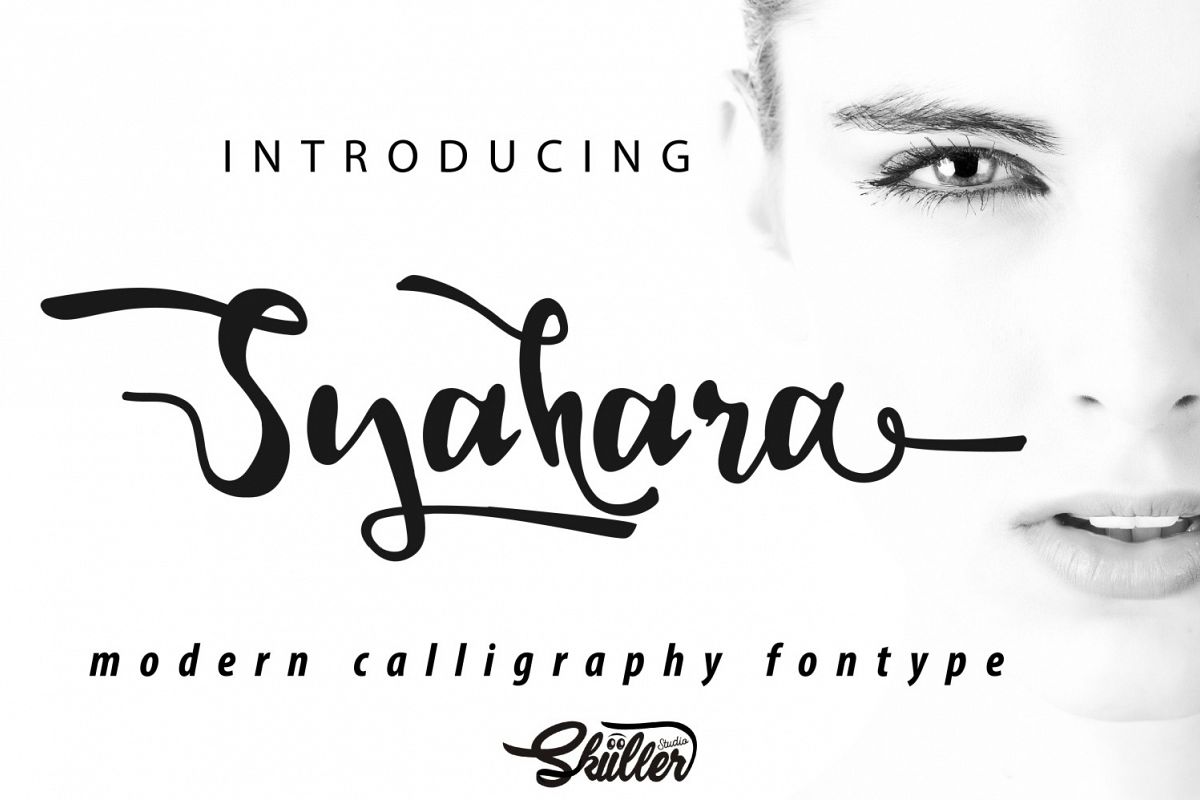
Syahara
Syahara-Regular
Syahara is a fresh and pleasant taste of Modern Calligraphy based on the type of handwriting.
With complete punctuation, numbers and ascending are included in this case.
Contains Alternative and Style Binders for more beautiful types of logos, business cards, posters, book covers, store brands, and many more of your needs.